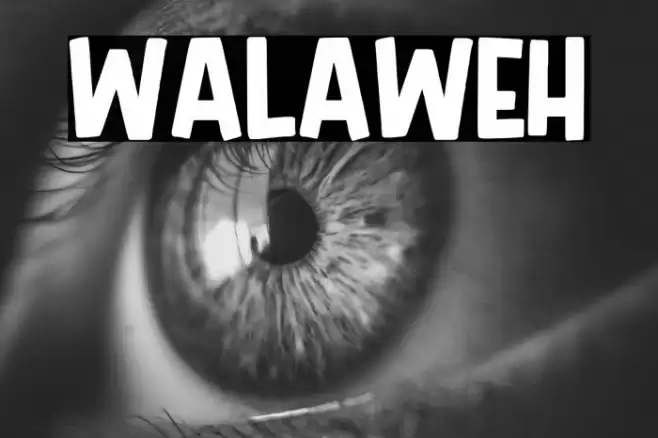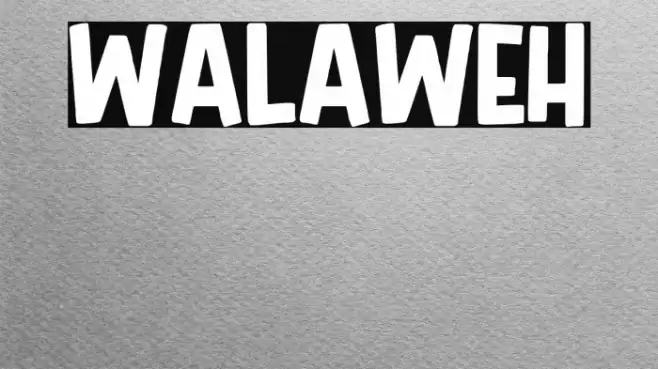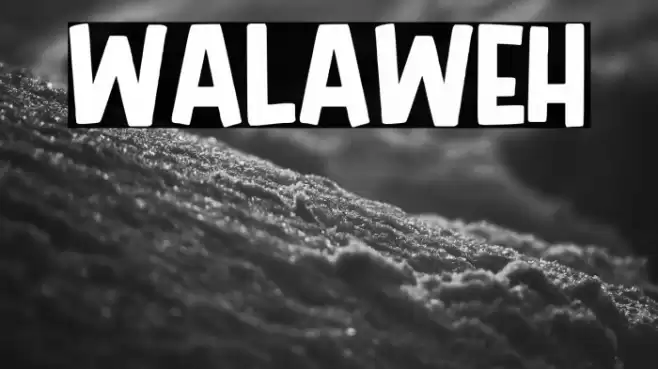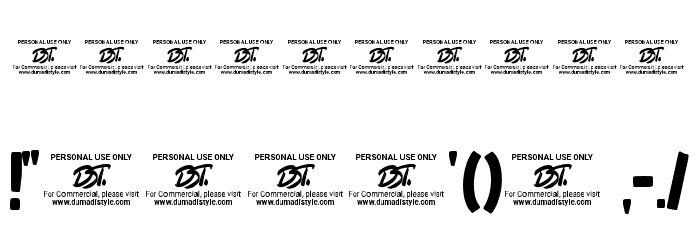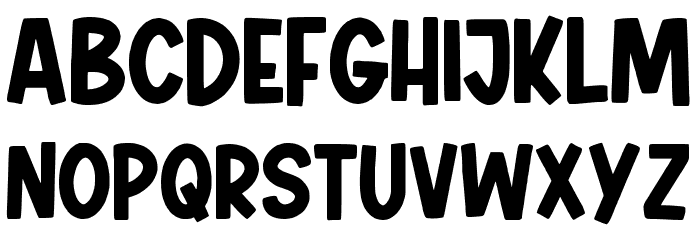
Walaweh Font
Walaweh Description
This font features a bold and playful design with a hand-drawn aesthetic. The characters are slightly irregular, giving it a whimsical and informal appearance. The uppercase letters are prominent and eye-catching, making them suitable for attention-grabbing headlines. The lowercase letters maintain the same playful style, ensuring consistency throughout. The numbers and special characters are designed to match the overall theme, adding to the font's cohesive look. This font is ideal for projects that require a fun and energetic vibe, such as children's books, posters, or party invitations.
A bold, playful font with a hand-drawn, whimsical style from Uncategorized fonts.
- Proposed Projects: Ideal for children's books, playful posters, party invitations, and casual branding.
- Overall Style: Playful, Whimsical, Hand-drawn
- Use Case: Headlines, Posters, Invitations